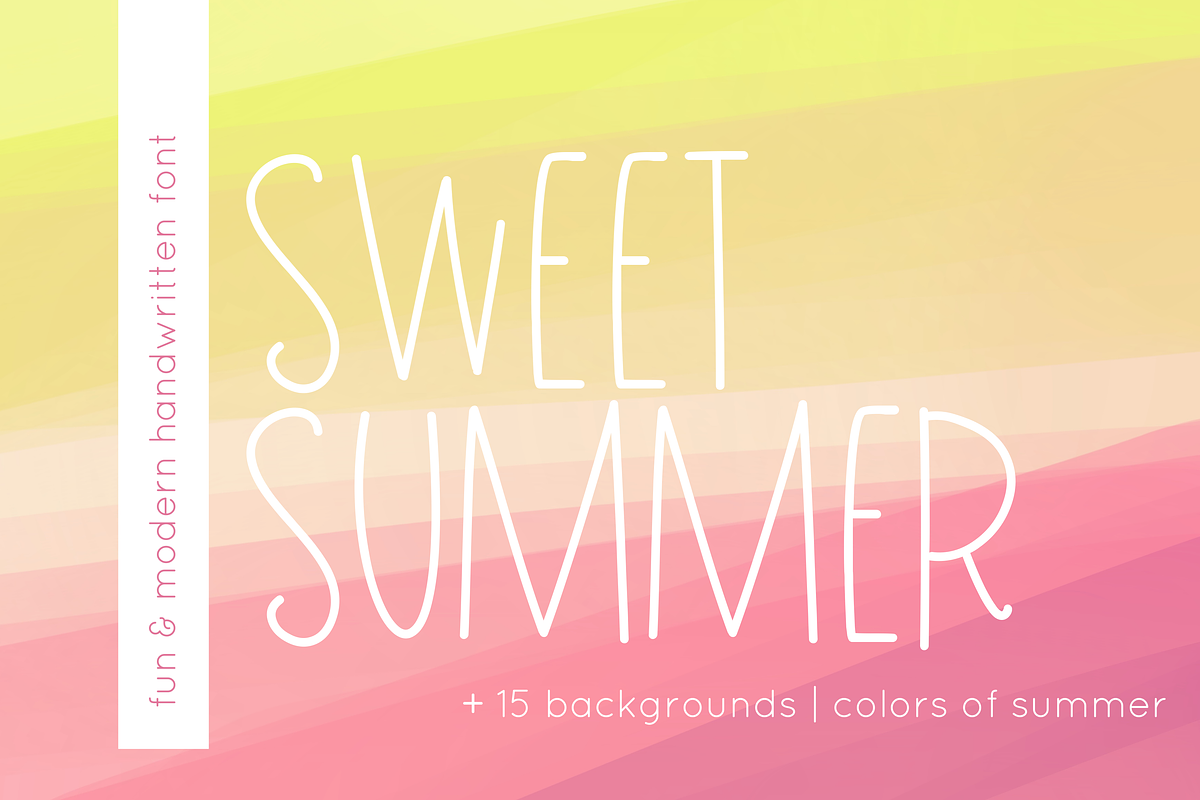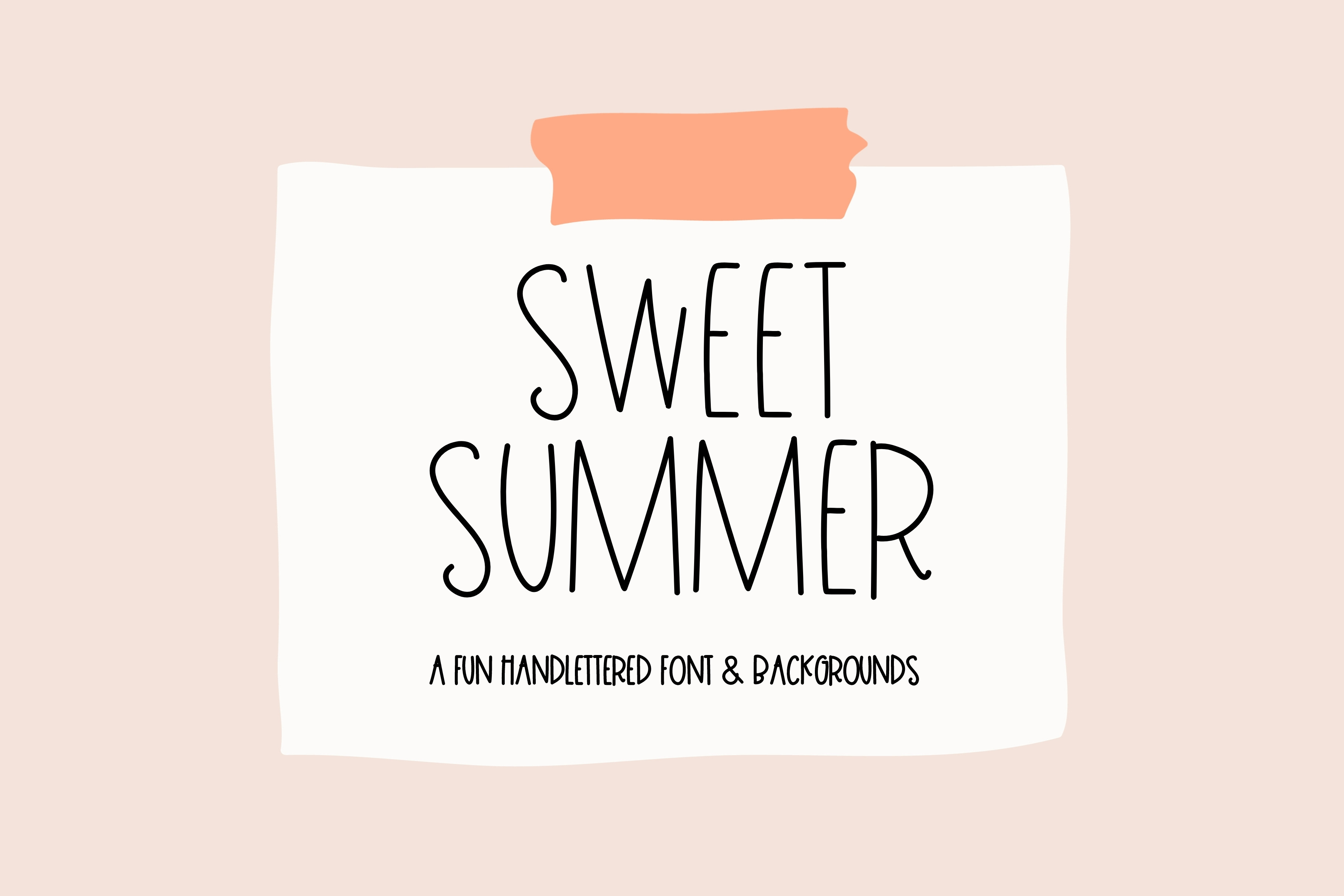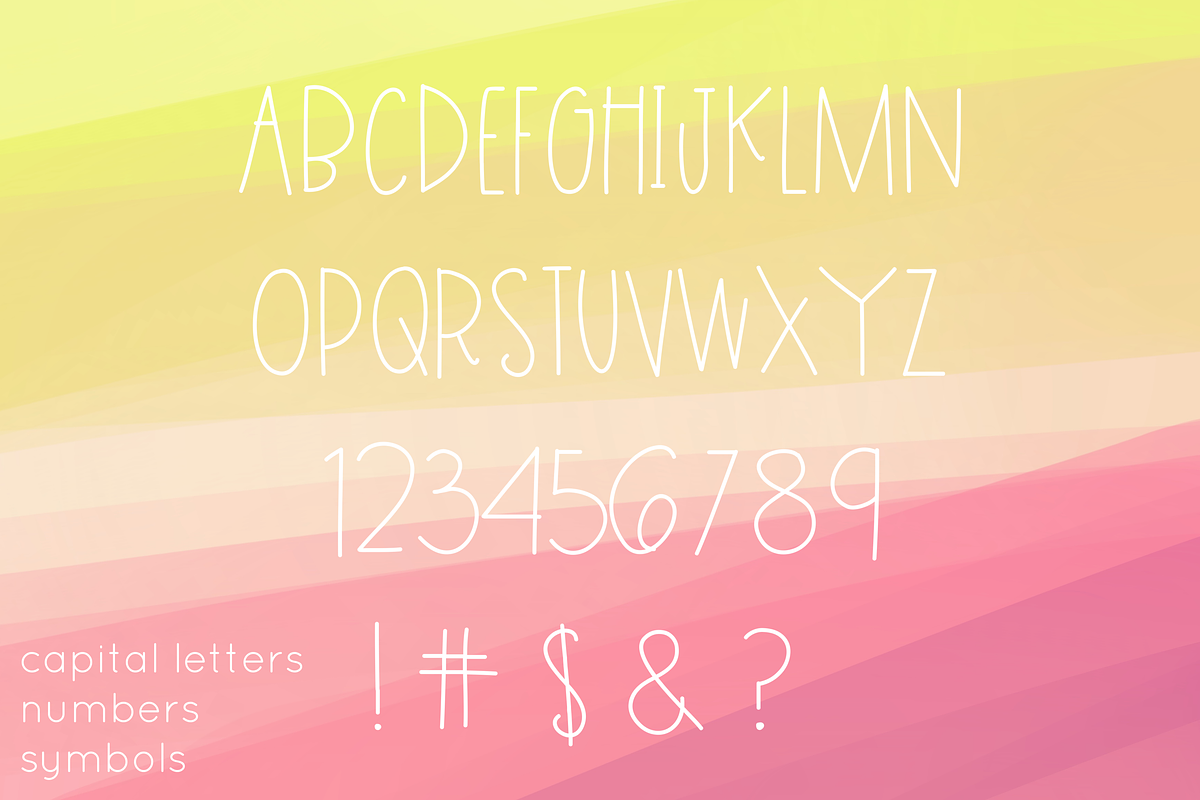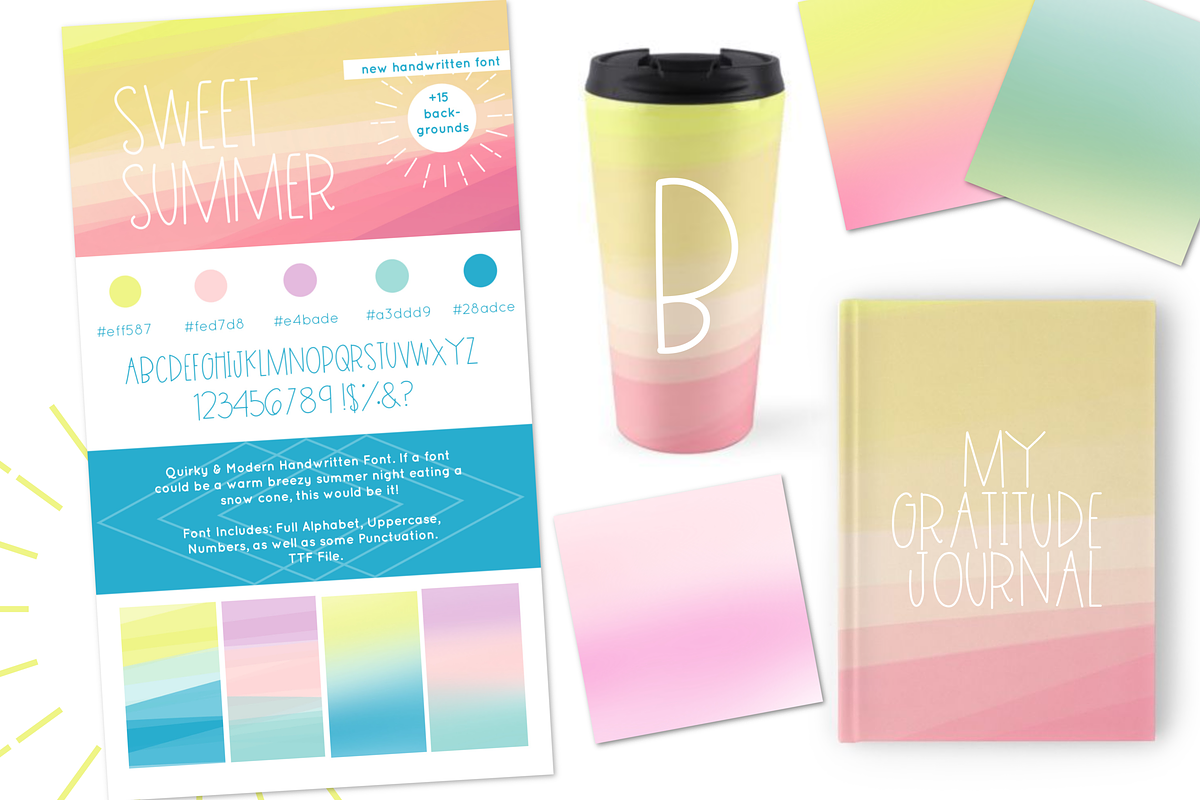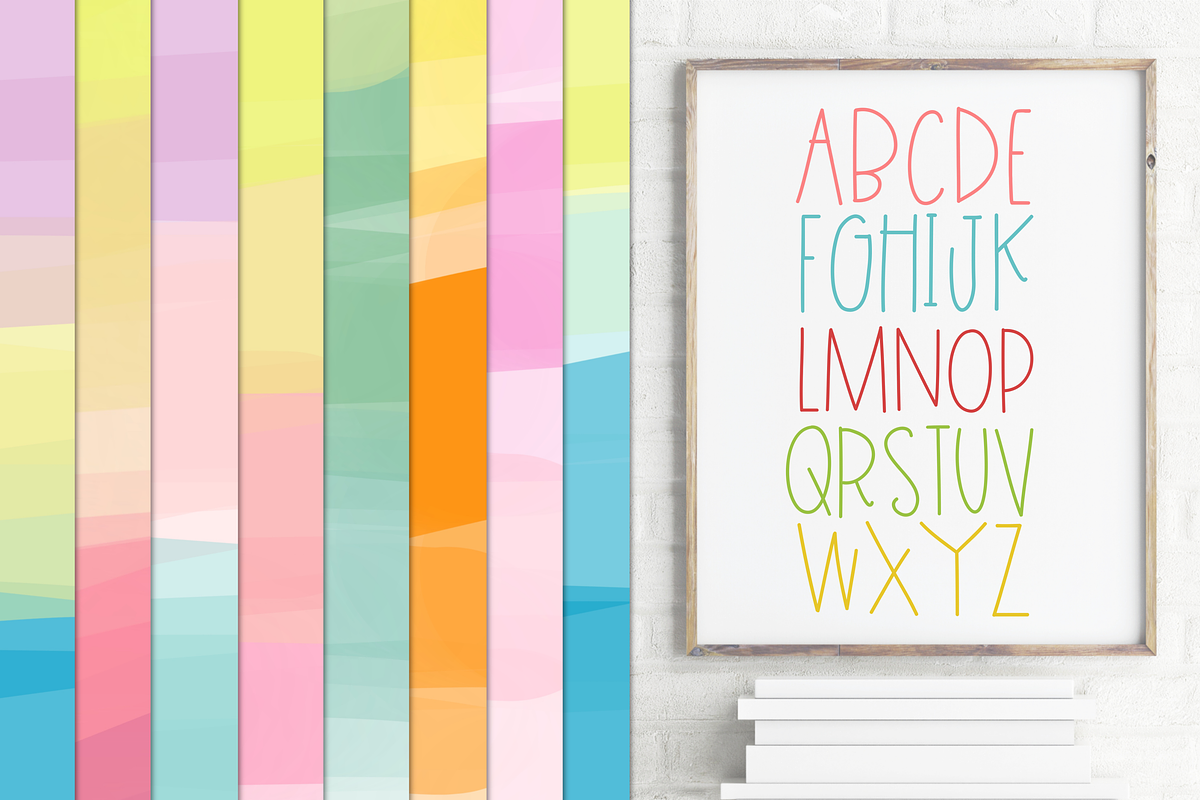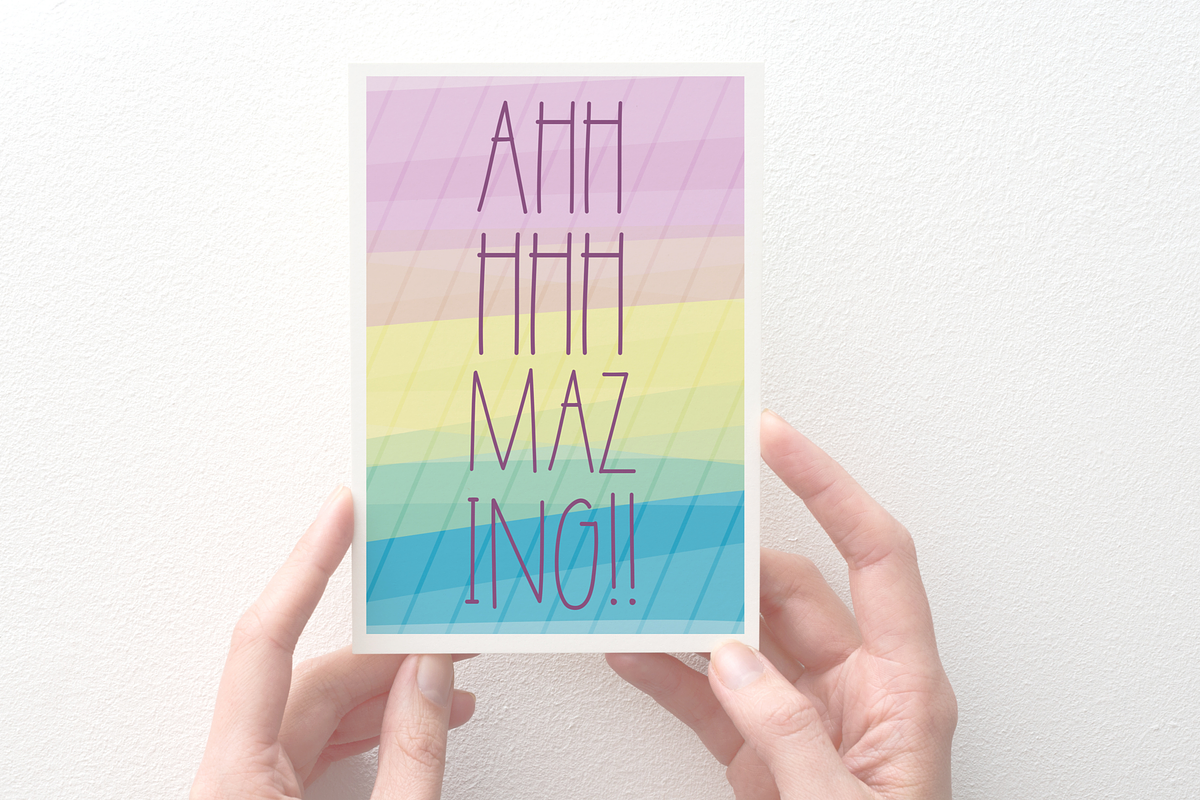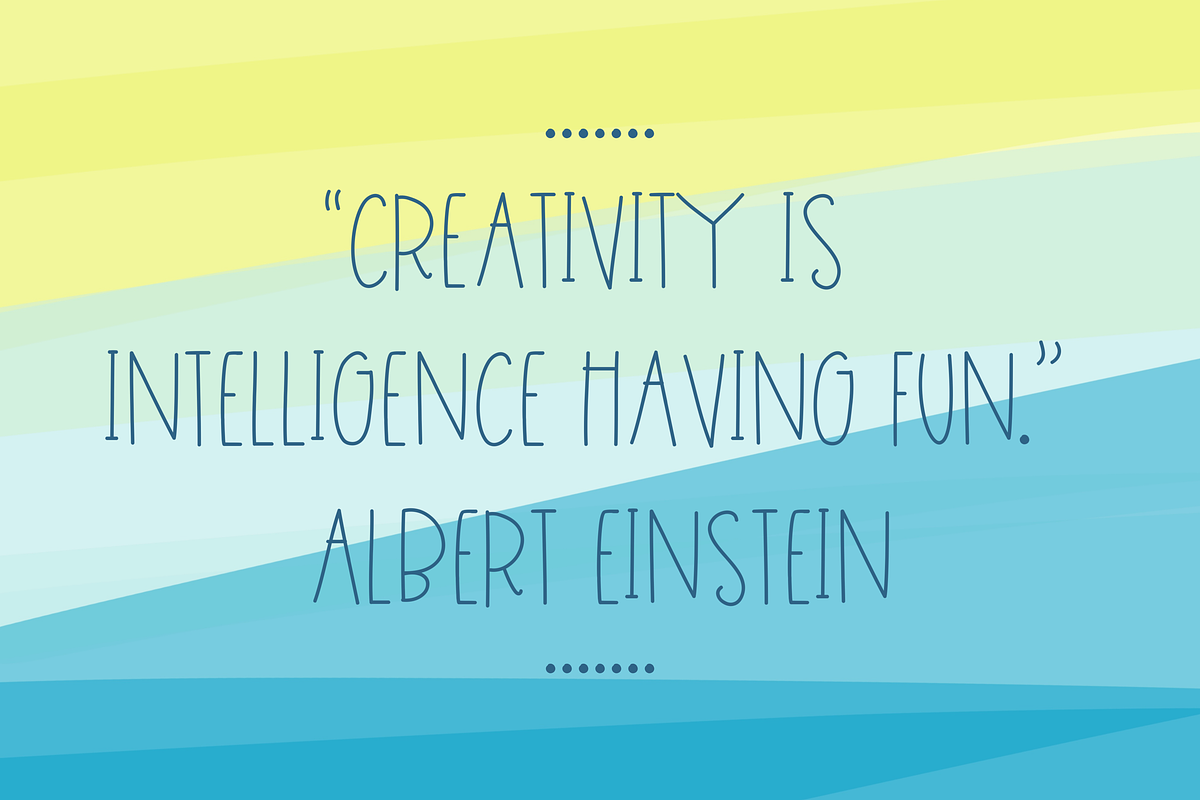
Sweet Summer Font + 15 Backgrounds
Quirky and Modern Handwritten Font. If a font could be a warm breezy summer night eating a snow cone, this would be it! Font Includes Full Alphabet, Uppercase, Numbers, as well as some Punctuation. TTF File. OTF File.